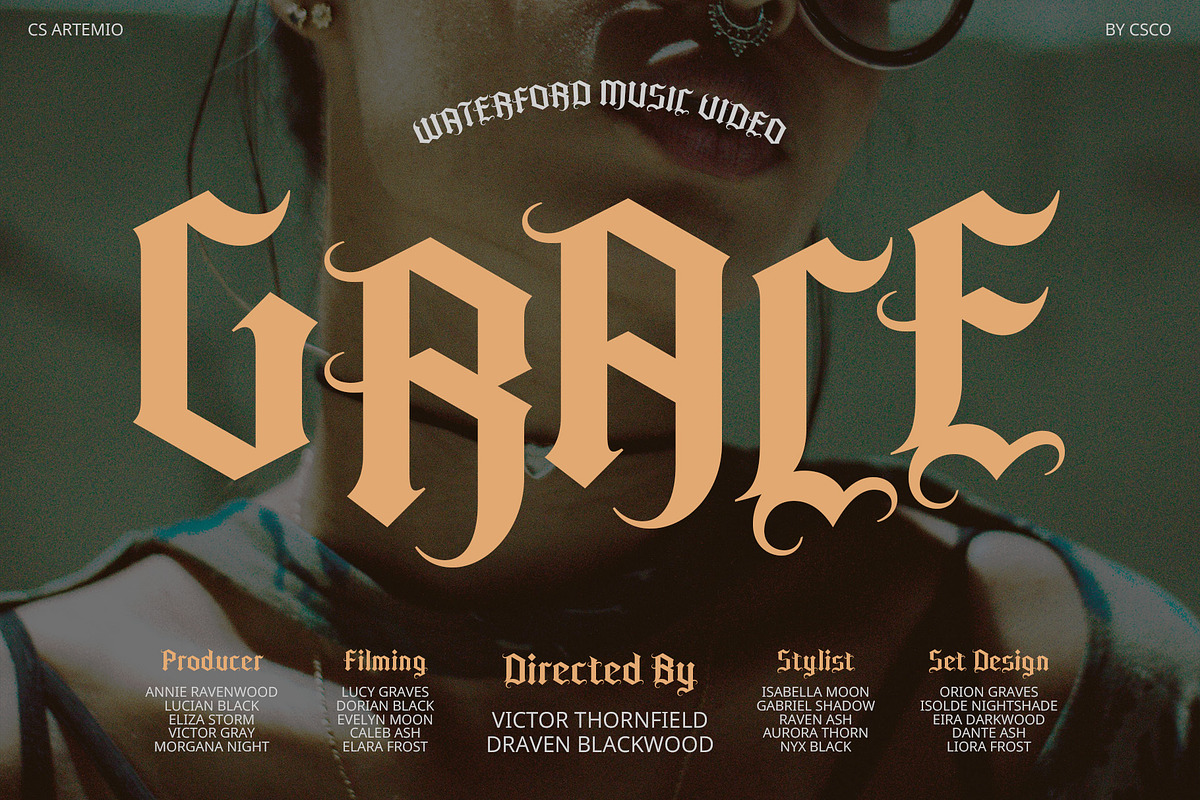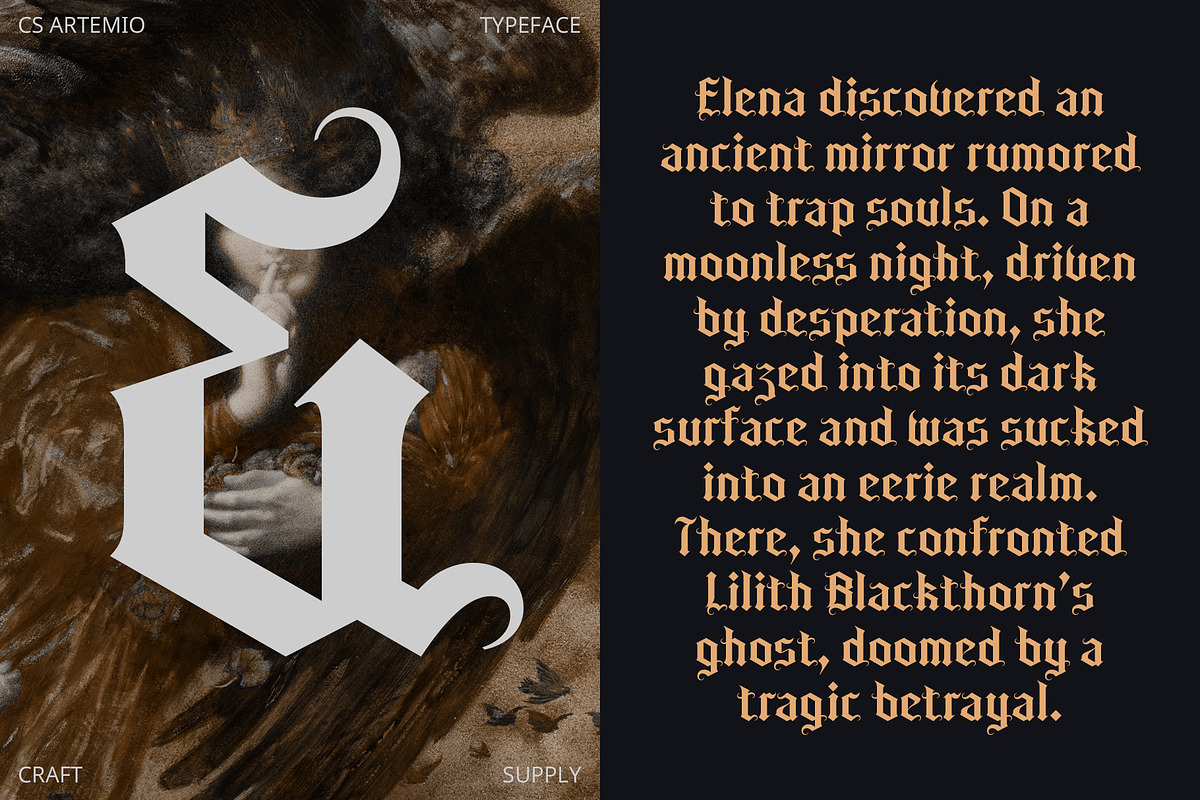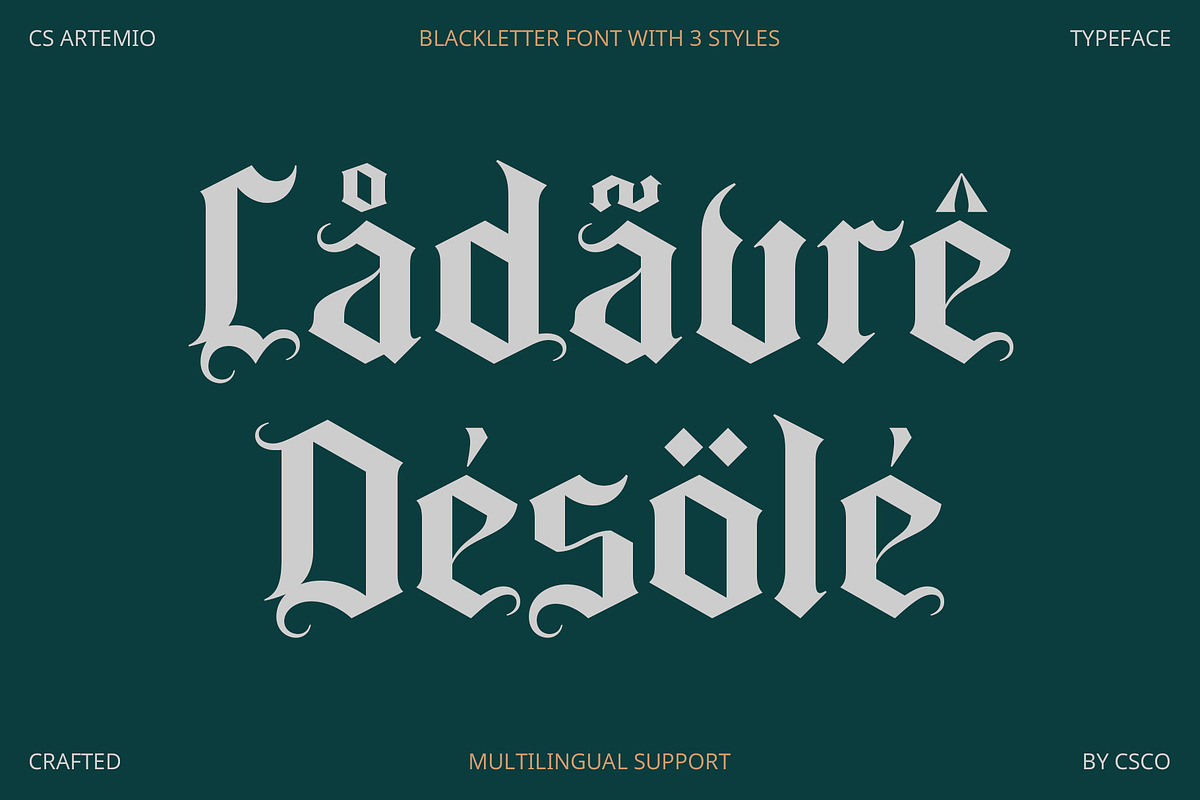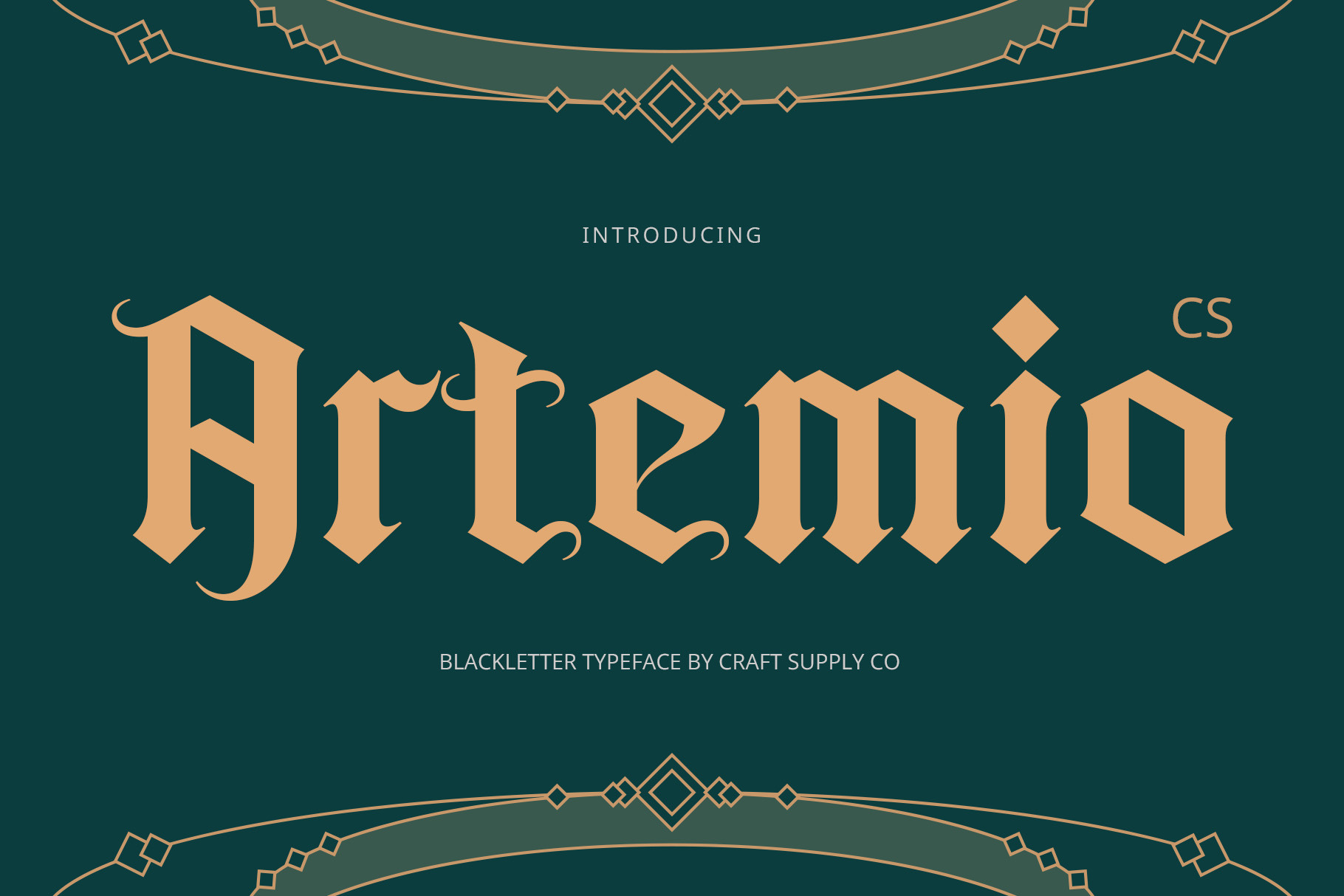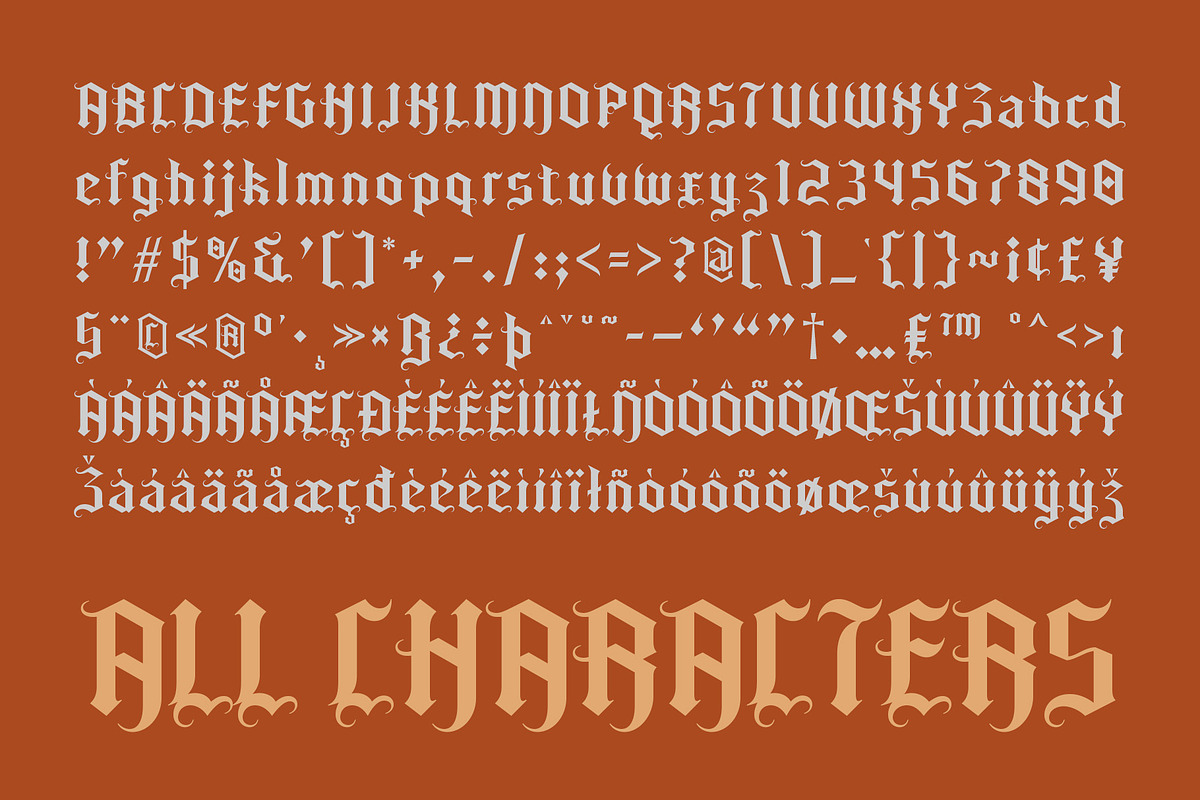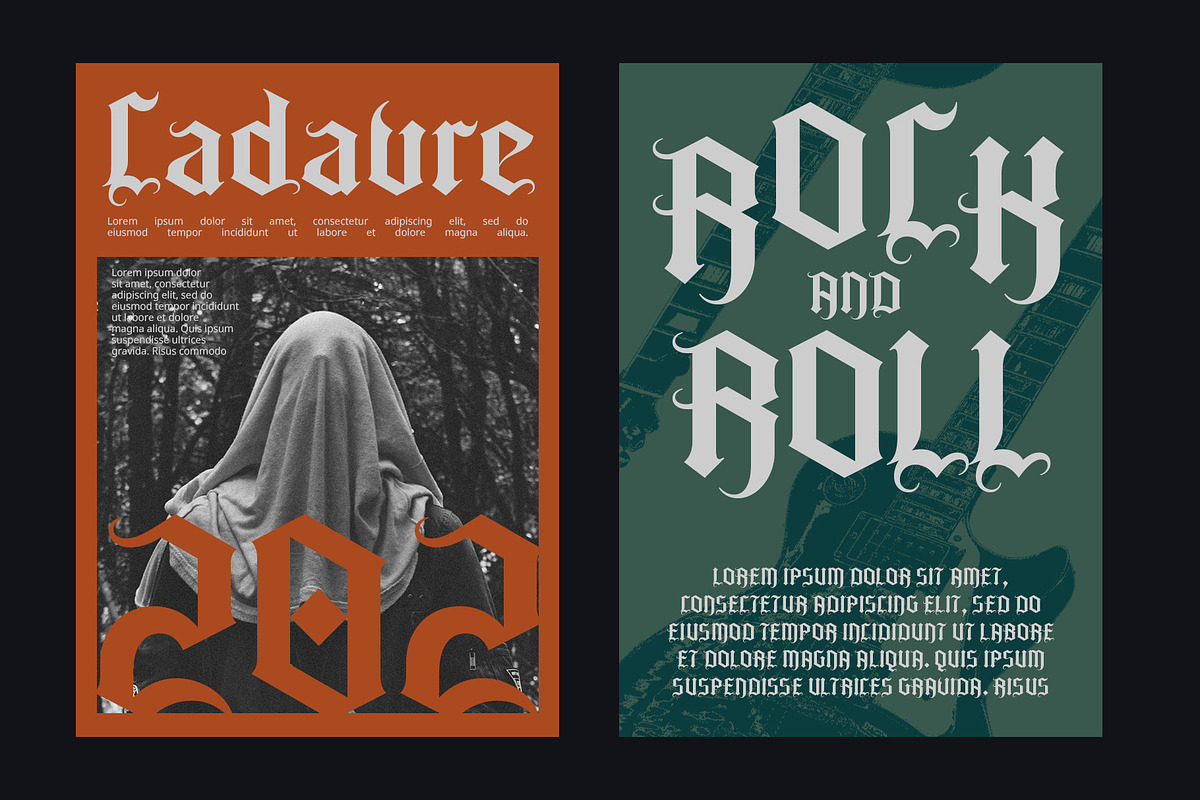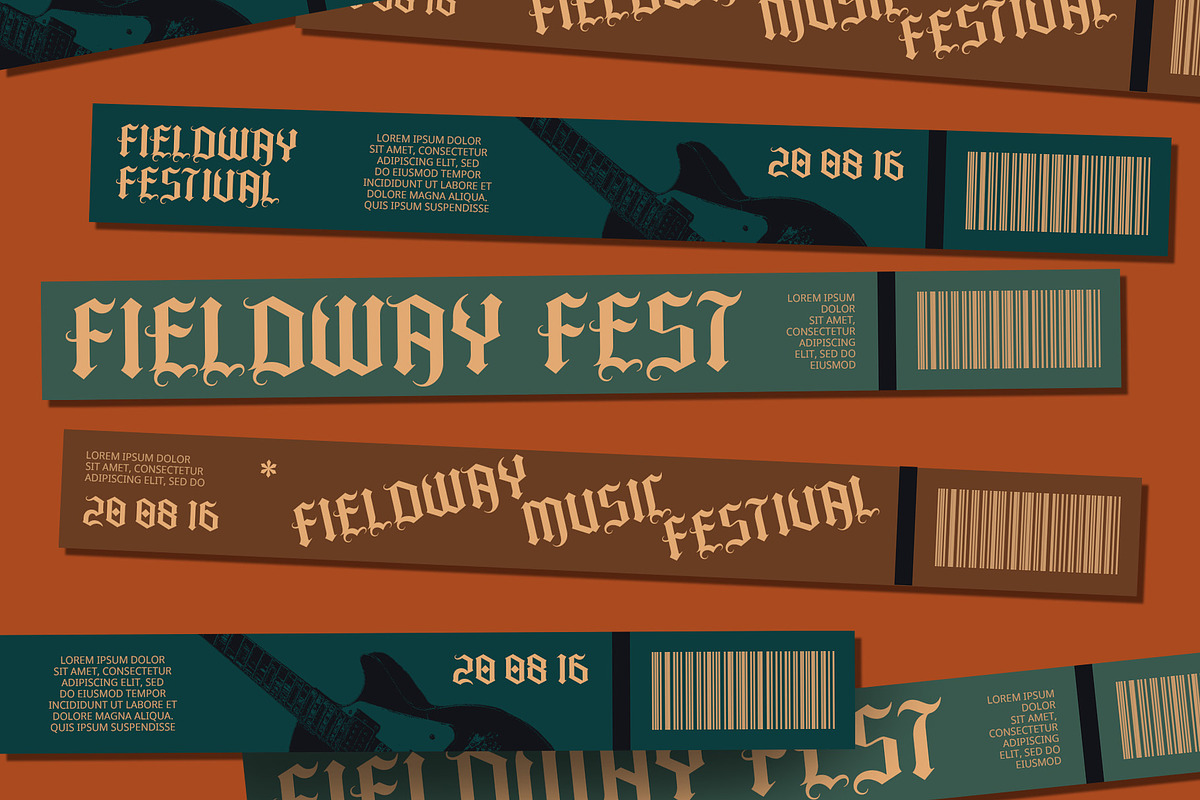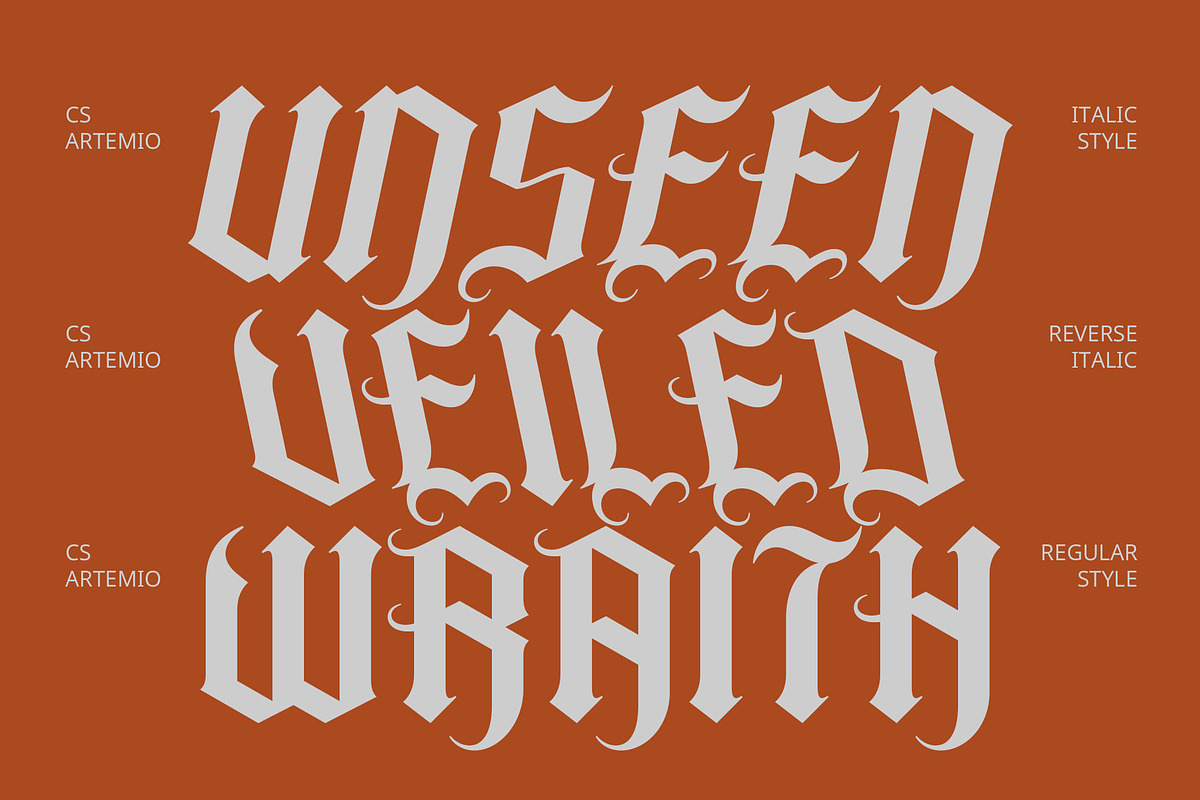
CS Artemio – Blackletter Font
CS Artemio – Blackletter Font: Medieval Elegance with a Strong Visual Presence
Gothic Blackletter Display Serif CS Artemio is a Blackletter Gothic display serif font that captures the essence of medieval elegance and gravitas. With its intricate letterforms and historical design, this font exudes a sense of tradition and authority, making it perfect for projects that require a powerful and sophisticated visual impact.
Intricate Letterforms for Historical Charm The detailed and ornate letterforms of CS Artemio bring a touch of historical charm to any design. This Blackletter style font is ideal for luxury branding, adding a layer of depth and richness to formal invitations, themed events, and more.
Blend of Tradition and Sophistication CS Artemio strikes a perfect balance between tradition and sophistication. Its Gothic design elements evoke a sense of timelessness and prestige, making it a standout choice for projects that seek to convey a strong and authoritative message.
Perfect for Themed and Formal Designs Whether you’re working on a medieval-themed event, luxury branding, or formal invitations, CS Artemio provides the ideal typographic solution. Its blend of historical elegance and bold visual presence ensures your designs leave a lasting impression.
- CS Artemio Regular
- CS Artemio Italic
- CS Artemio Reverse Italic